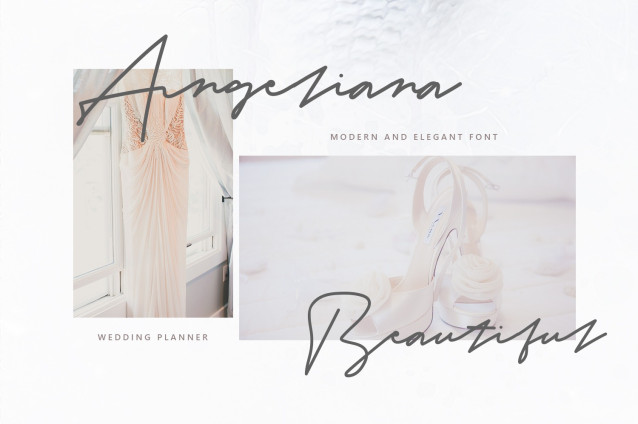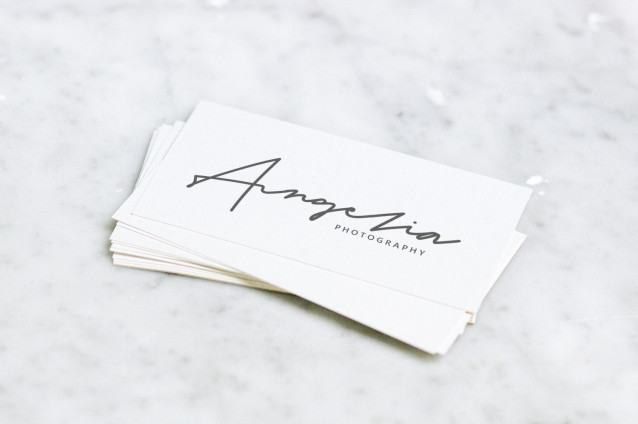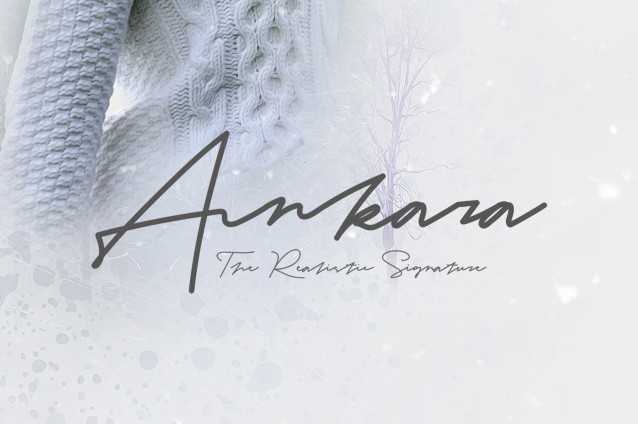
Ankara Font
Ankara Font is a beautiful and sincere script font, identical to a handwritten signature. This is a thoughtfully crafted font that can add some modernity and sleekness to your compositions.